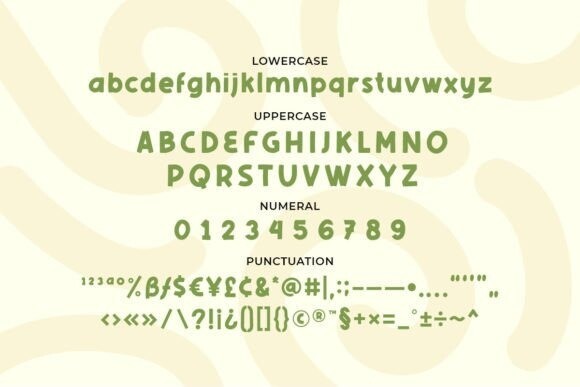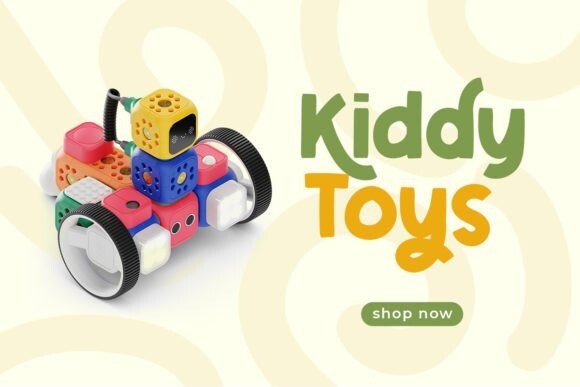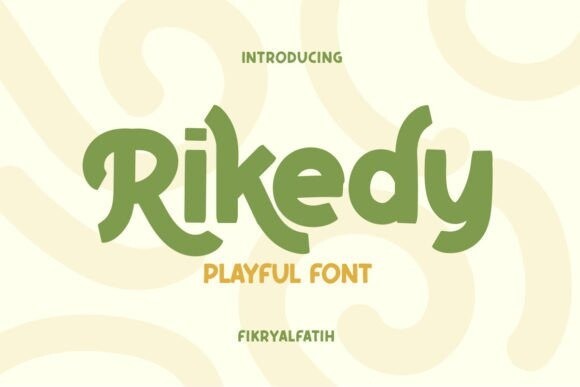
Rikedy Font
Designer: Fikry Alfatih
Rikedy Font is a cute and fun display typeface. This font is perfect for all your craft projects that require a sense of vibrancy and excitement.